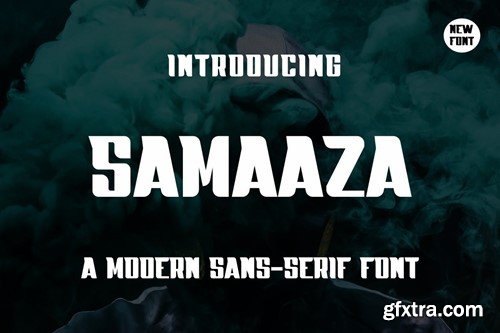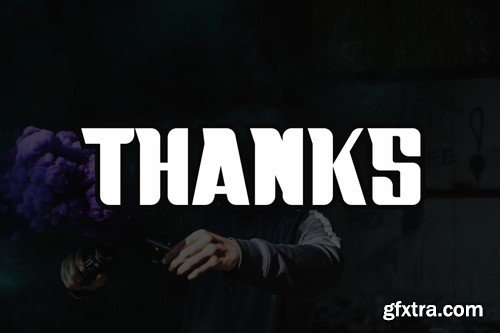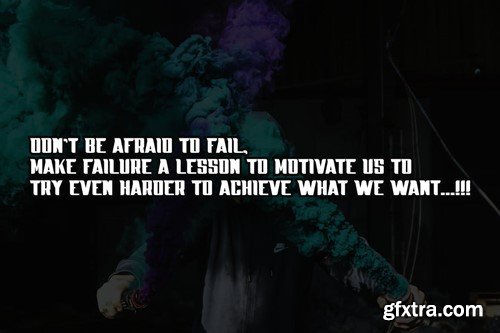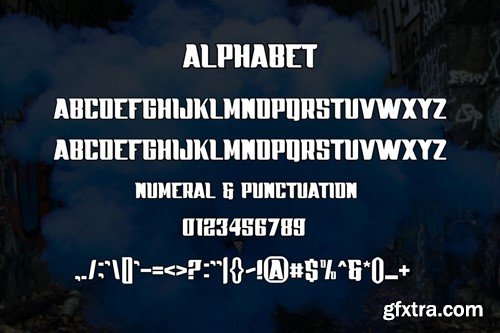
Samaaza Font 22WWJLK
Samaaza Font
Proudly present our new product Samaaza Font
Samaaza Font is a modern and authentic font. Perfect for both professional and branding needs of a product. This font is suitable for any branding project like quotes, logo, blog header, poster, banding, letter, invitation, stationery, etc... Designed as a versatile and flexible that can be used on a range of projects and mediums. outstanding in a wide range of contexts.